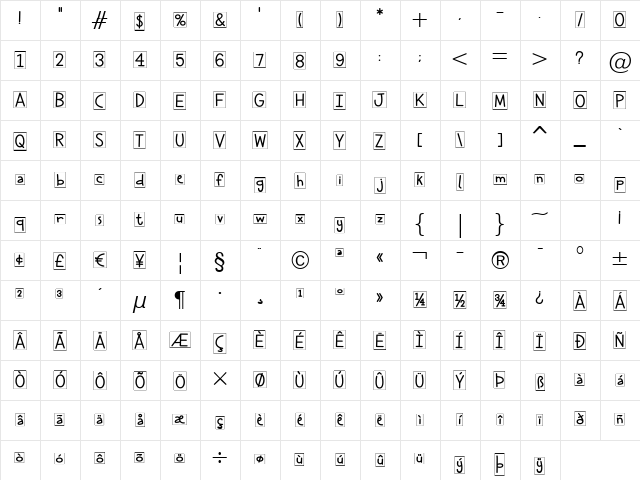
Cheddar Salad BTN Cameo Sq Regular
Design Context for Cheddar Salad BTN Cameo Sq Typeface
Cheddar Salad BTN Cameo Sq takes a measured approach to typography — its balanced proportions and neutral character make it a reliable workhorse for both digital and print work.